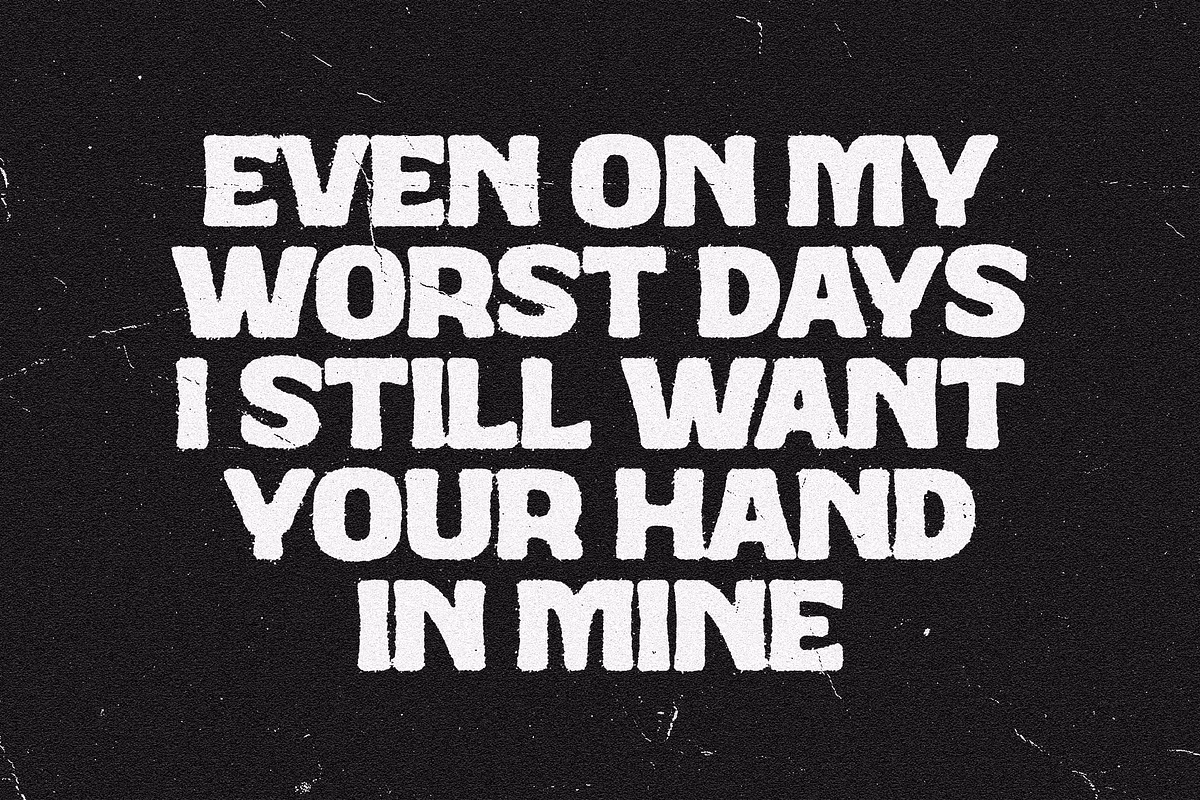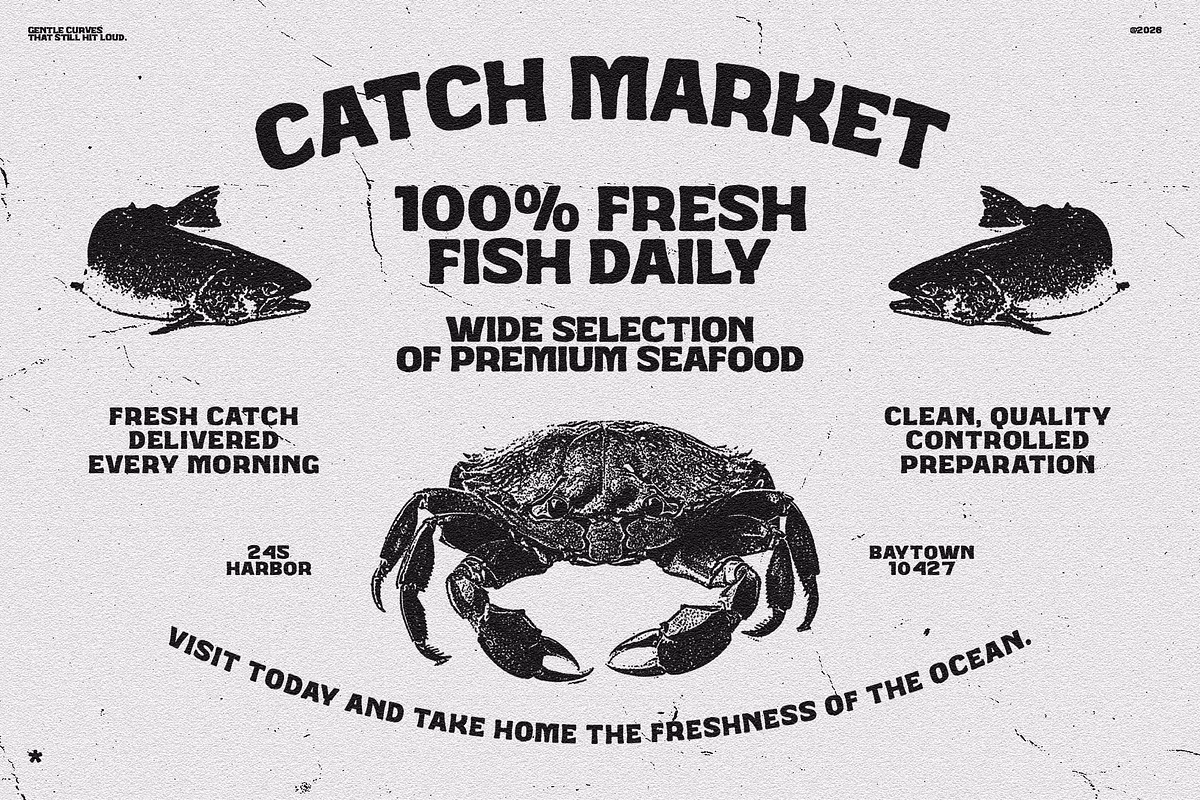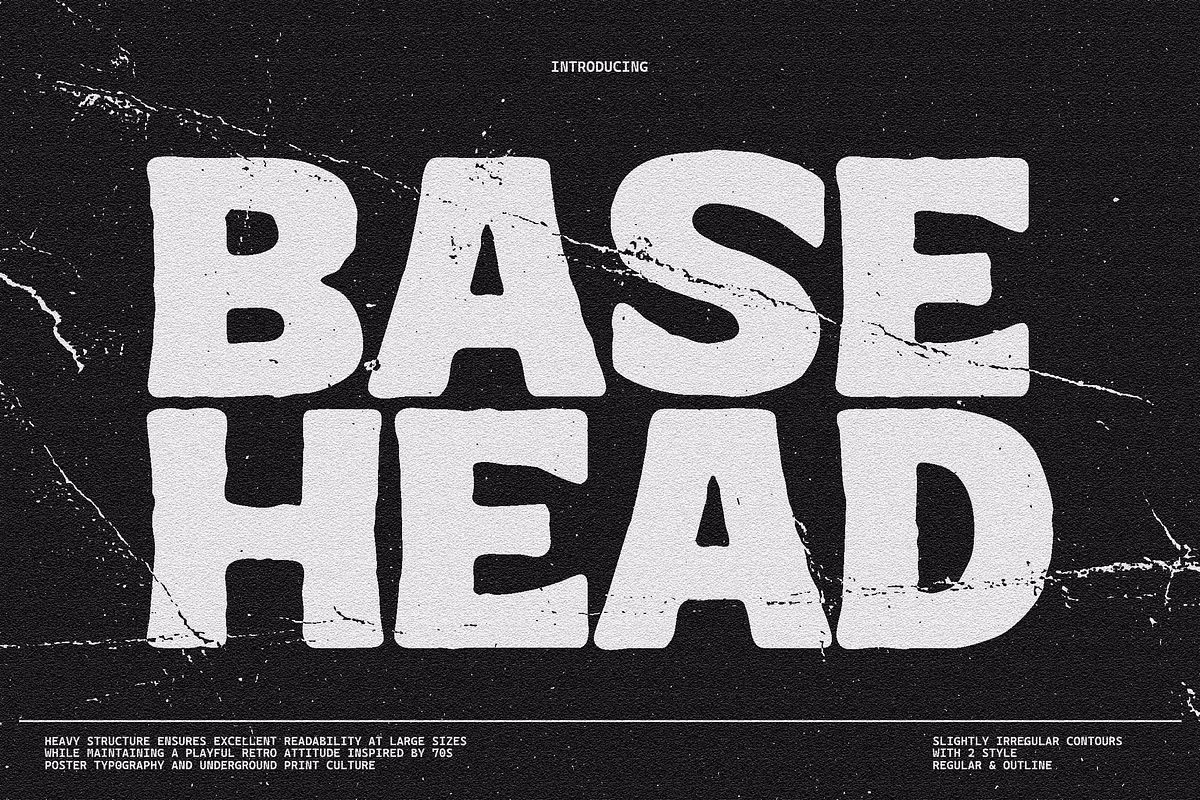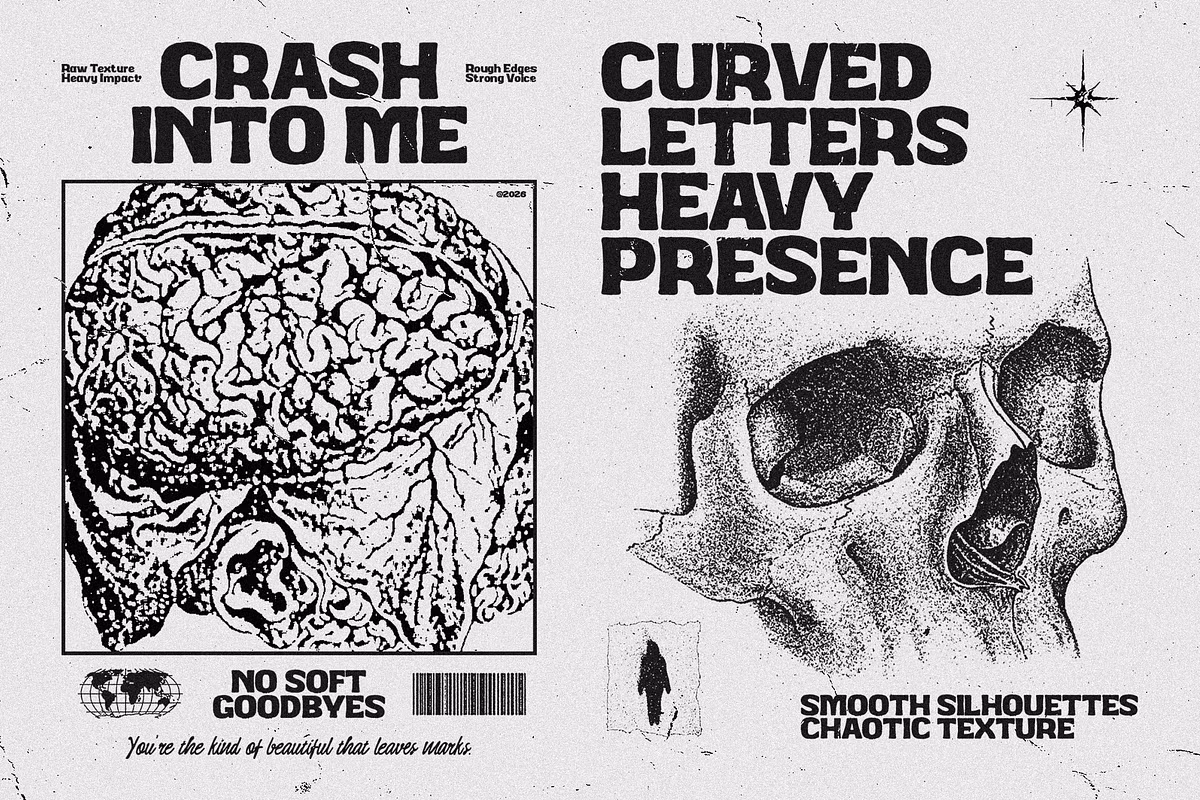
BaseHead: Bold Retro Display Font for Impactful Headlines
Introduction to BaseHead
BaseHead is a really bold font that’s perfect for headlines. It’s got a strong, vintage look that’s also modern and cool. The letters are thick and a bit rough around the edges, which gives it a handmade feel that really stands out. Even when it’s big, it’s still easy to read, and it’s got a fun, retro vibe that’s like old posters from the 70s. It’s great for adding some personality to your designs. The font is inspired by underground print culture, which makes it really unique and eye-catching. Overall, BaseHead is a great choice if you want a font that’s going to make a statement.
Design Style of BaseHead
BaseHead’s design is really cool because it mixes old and new styles. The thick letters look like they’re from a long time ago, like posters from the 70s. But it also has a modern feel that’s perfect for today. The letters aren’t perfectly shaped, which makes them look like they were made by hand. This gives BaseHead a genuine feel that works well in many different situations. The old-school vibe is balanced with a fresh, modern energy, making it great for all kinds of uses.
Overall, BaseHead’s unique style makes it stand out and feel authentic. The boldness of this font really makes it stand out, which is why designers love using it to make a big impact. If you’re creating headlines for ads, posters, or social media, BaseHead is a great choice because it grabs your attention right away.
Character Sets and Features
BaseHead comes packed with a variety of character sets and features that enhance its usability across different languages and formats. The font includes:
- Uppercase and Lowercase Letters: This versatility allows for creative typographic compositions.
- Numerics: Perfect for any project that requires numerical representation, from dates to prices.
- Punctuation: Essential for creating complete sentences and expressions within your design.
- Multilingual Support: BaseHead includes characters for multiple languages, making it a global choice for designers.
This font is really useful because it works well in lots of different situations. You can use it to make big, bold headings or smaller, more detailed text, and it will still look great. That’s what makes it such a handy tool to have when you’re designing something. It can adapt to whatever you need it to do, so you don’t have to worry about it ruining your design.
Use Cases for BaseHead
BaseHead is ideal for a multitude of design scenarios. Here are some practical use cases:
- Posters: Its bold presence works wonders for music event posters, art exhibitions, and street art, drawing attention from afar.
- Branding: Brands looking to establish a strong identity can utilize BaseHead for logos and promotional materials, ensuring they stand out in a crowded marketplace.
- Social Media Graphics: With the rise of visual communication, BaseHead is perfect for creating engaging and bold graphics for platforms like Instagram and Facebook.
- Merchandise: BaseHead can be used effectively on t-shirts, mugs, and other merchandise, giving them a unique and retro vibe that appeals to nostalgic audiences.
These examples show how flexible the font is and how it can fit in with both old and new styles, which makes it really useful for designers.
Pairing Suggestions for BaseHead
When working with BaseHead, pairing it with complementary fonts can elevate your design even further. Here are some effective pairing suggestions:
- Sans Serif Fonts: Pair BaseHead with a clean sans serif font like Montserrat or Open Sans for body text. This contrast allows the boldness of BaseHead to shine while maintaining readability.
- Script Fonts: For a playful and creative touch, consider pairing BaseHead with a script font like Pacifico or Dancing Script. This combination can create a dynamic and inviting look.
- Serif Fonts: A classic serif font such as Playfair Display can provide an elegant contrast to the boldness of BaseHead, ideal for high-end branding projects.
Experimenting with these pairings can help you find the perfect combination that complements the unique character of BaseHead while enhancing the overall design aesthetic.
It’s also really versatile, so you can pair it with other fonts to create something unique. So, why not try using BaseHead in your next design project and see how it can add some boldness to your work? It’s perfect for creating something that will grab people’s attention and leave a lasting impression.